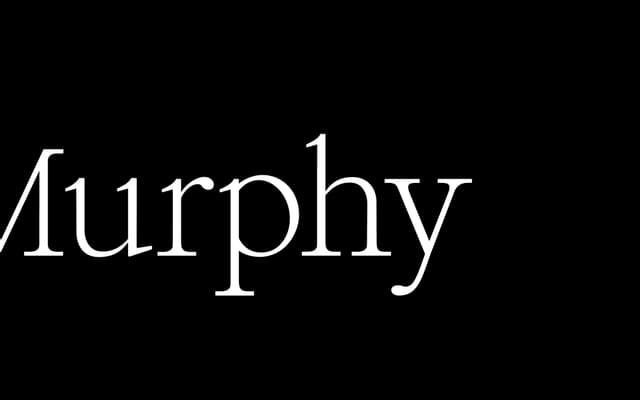
A thin, restrained display serif with an eccentric origin story, covering standard Latin glyphs and functioning across both large and small sizes.
Murphy is a hybrid display and text serif with a thin, controlled character that sits comfortably at headline scale while remaining legible at smaller settings. The design draws its personality from an unlikely muse, described as a chunky dog with an odd tail, lending it a subtle idiosyncrasy beneath its restrained exterior. Character set covers standard Latin and Latin-1 Supplement glyphs.
Described as a hybrid display/text serif with a thin, restrained character, suggesting a refined display serif that holds up at smaller sizes.